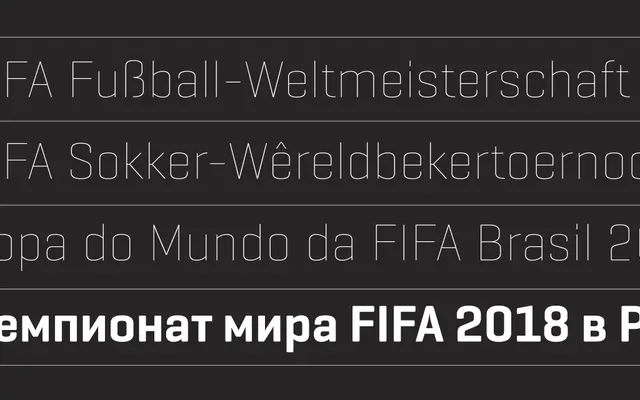
Geogrotesque Cyrillic
The Cyrillic extension of Geogrotesque, a semi-modular geometric grotesque with subtle rounded terminals covering Latin Extended and Cyrillic scripts across 14 styles.
Built on the same formal principles as the original Geogrotesque, this extension adds a full Cyrillic character set alongside an expanded Latin, enabling use across more than 115 languages. Seven weights from Thin to Bold each have matching italics, and the rounded finish softens what would otherwise be a strictly geometric construction. The result sits comfortably in editorial, branding and interface work where a warmer geometric tone is needed.
A semi-modular geometric sans with subtle rounded terminals, placing it between a strict geometric grotesque and a humanist grotesque in character.